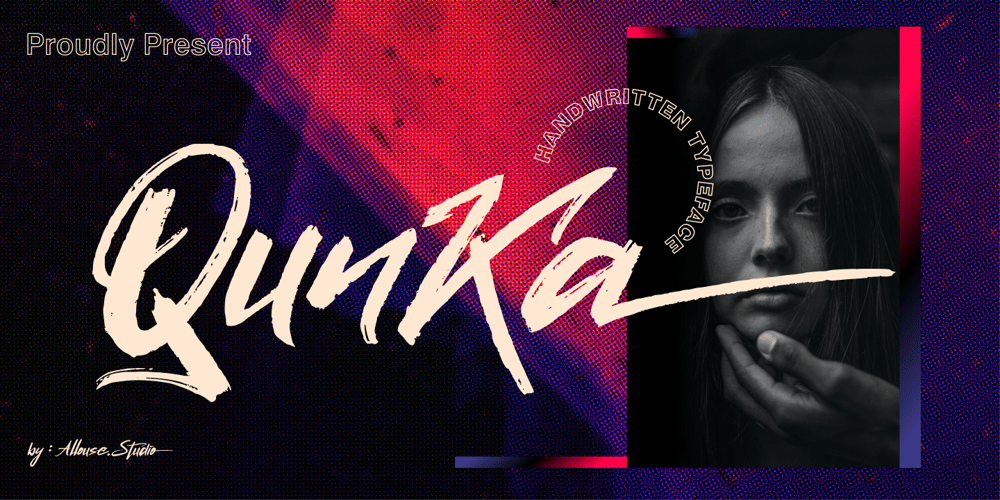
Qunka
Qunka font
Qunka Font Family was designed by Fachrizal Yusuf and published by Allouse Studio. Qunka contains 1 styles and family package options. Proudly Present, Qunka a Handwritten Typeface Font.Qunka come along with Stylistic-Alternate and Multi-Lingual Support which will give you many choices to play around.We highly recommend using a program that supports OpenType features and Glyphs panels like many of Adobe apps and Corel Draw, so you can see and access all Glyph variations.Qunka is perfect for any tittle, logo, product packaging, branding project, megazine, social media, wedding, or just used to express words above the background.Enjoy the font, feel free to comment or feedback, send me PM or email. Thank You!